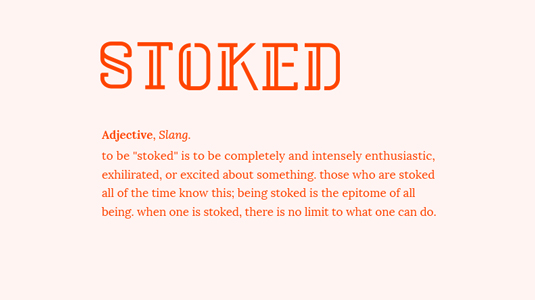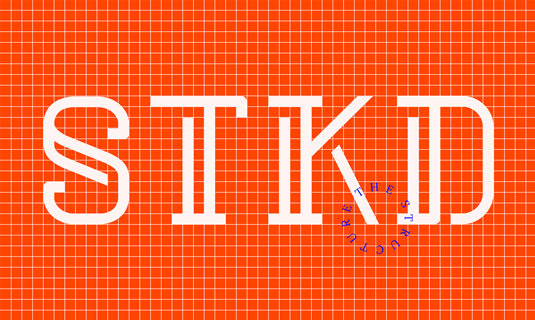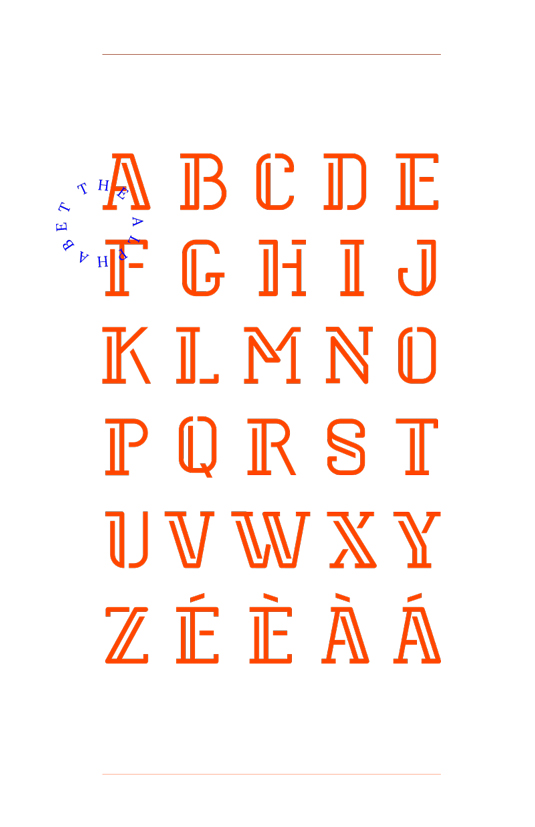
Stoked by Marie-Michelle Dupuis
The name of today's font of choice pretty much sums up how we feel about the design. Stoked is cool display typeface, created by graphic designer Marie-Michelle Dupuis. "Stoked was rescued with love from a rejected five custom letters logo," she comments. "Convinced that its life wasn't meant to be abandoned so cruelly, I decided to give it 21 other friends. It's now up to you to decide what its faith will be."